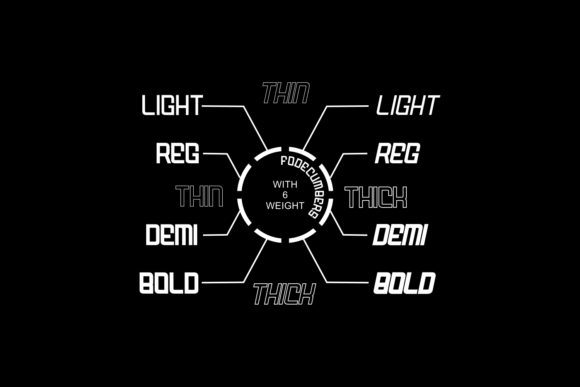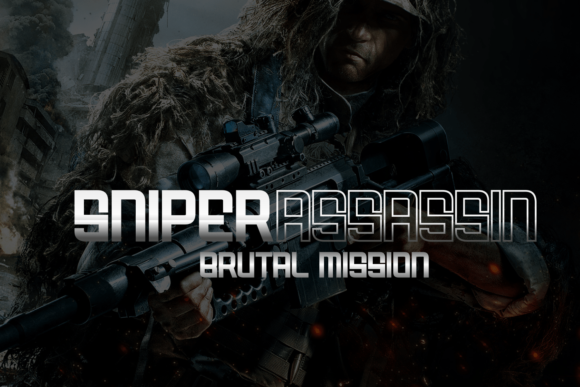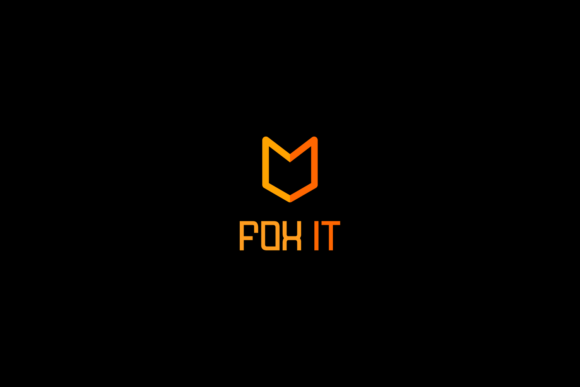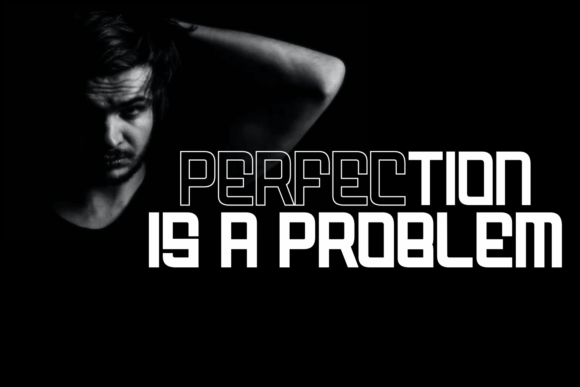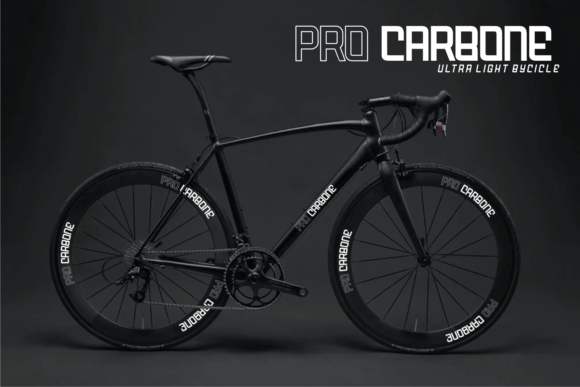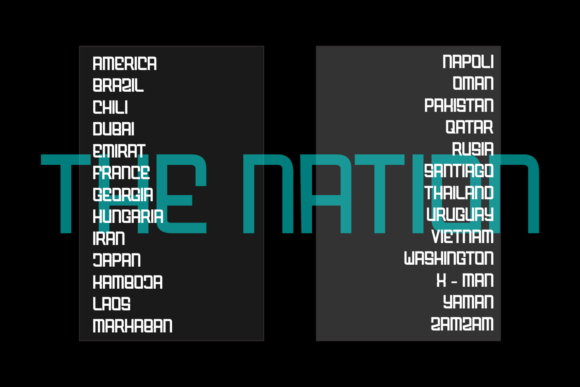
Fodecumbers Font: Elevate Your Designs with a Simple yet Dynamic Display Font
In the world of typography, fonts play a crucial role in conveying messages, expressing emotions, and creating visual identities. For designers and crafters, finding the perfect font can be a daunting task, especially when it comes to creating stunning fashion branding or editorial designs. This is where Fodecumbers Font comes in – a simple yet dynamic display font that can elevate your projects to the next level.
What is Fodecumbers Font?
Fodecumbers Font is a modern display font designed to make a statement. Its simplicity and dynamism make it an ideal choice for designers looking to add a touch of elegance and sophistication to their work. Whether you’re creating a fashion brand, editorial design, or any other project that requires a bold and eye-catching font, Fodecumbers is the perfect choice.
Key Features of Fodecumbers Font
- Simple yet Dynamic: Fodecumbers Font boasts a clean and minimalist design that exudes confidence and style. Its dynamic curves and lines add a touch of sophistication, making it perfect for high-end fashion branding and editorial designs.
- Versatile: This font is incredibly versatile and can be used for a wide range of projects, from logos and headlines to packaging and advertising materials.
- Easily Readable: Despite its bold and dynamic design, Fodecumbers Font is surprisingly easy to read, making it perfect for use in both digital and print materials.
- Highly Customizable: With Fodecumbers Font, you can experiment with different colors, textures, and styles to create a unique look that reflects your brand’s personality.
Why Choose Fodecumbers Font?
So, why should you choose Fodecumbers Font for your next project? Here are just a few reasons:
- Stand out from the Crowd: With Fodecumbers Font, you can create stunning designs that stand out from the crowd. Its unique blend of simplicity and dynamism makes it a font that’s hard to forget.
- Perfect for Fashion Branding: If you’re working on a fashion branding project, Fodecumbers Font is an excellent choice. Its elegant and sophisticated design makes it perfect for high-end fashion brands.
- Easy to Use: Fodecumbers Font is incredibly easy to use, even for those who are new to design. Its clean and intuitive design makes it easy to get started and experiment with different styles.
How to Use Fodecumbers Font?
Using Fodecumbers Font is easy. Here are a few tips to get you started:
- Pair it with Other Fonts: Experiment with pairing Fodecumbers Font with other fonts to create a unique and visually appealing design.
- Play with Colors and Textures: Don’t be afraid to experiment with different colors and textures to add depth and interest to your design.
- Use it for Headlines and Logos: Fodecumbers Font is perfect for use in headlines and logos. Its bold and dynamic design makes it easy to read and remember.
In conclusion, Fodecumbers Font is a simple yet dynamic display font that’s perfect for fashion branding or editorial designs. Its versatility, readability, and customizability make it an excellent choice for designers and crafters looking to elevate their projects. With Fodecumbers Font, you can create stunning designs that stand out from the crowd and leave a lasting impression. So why wait? Add Fodecumbers Font to your projects today and experience the difference for yourself.